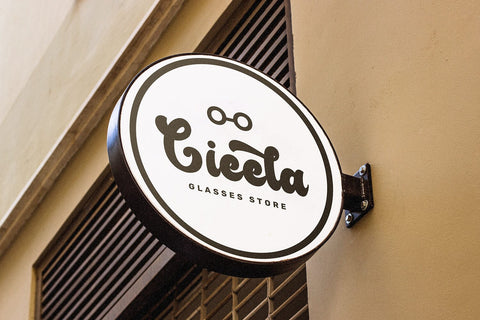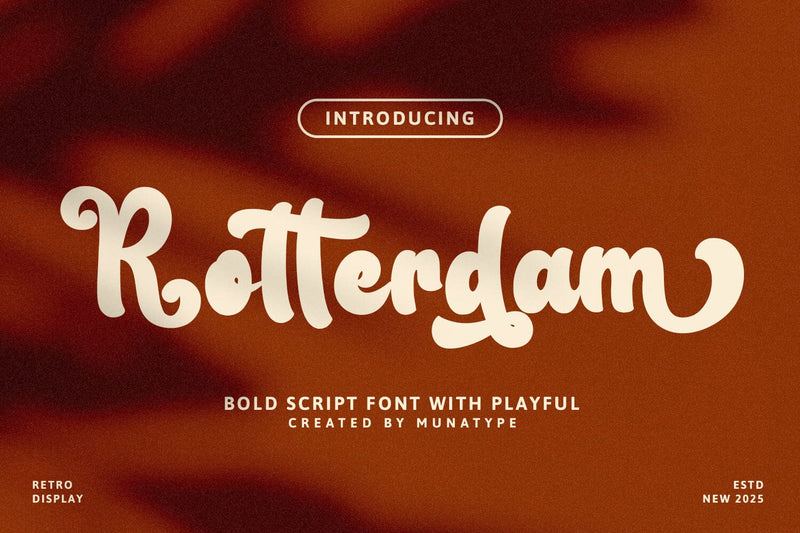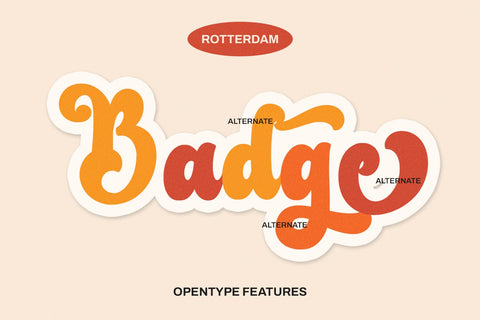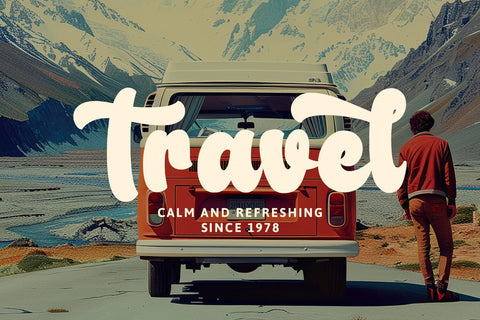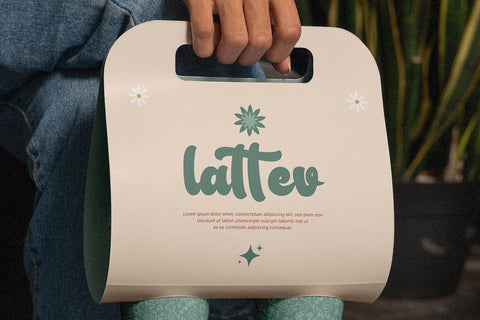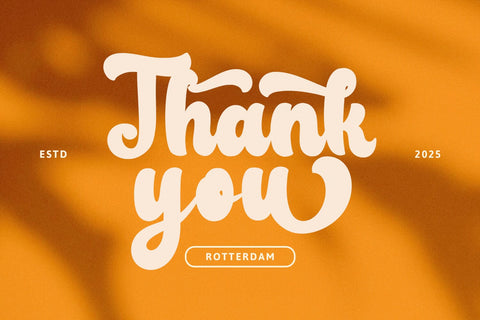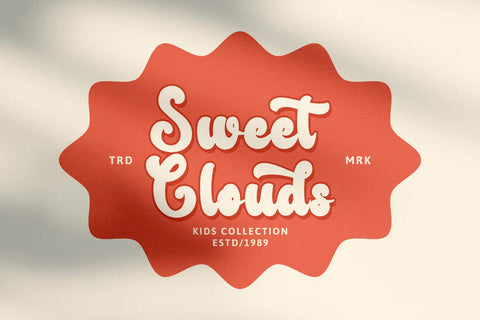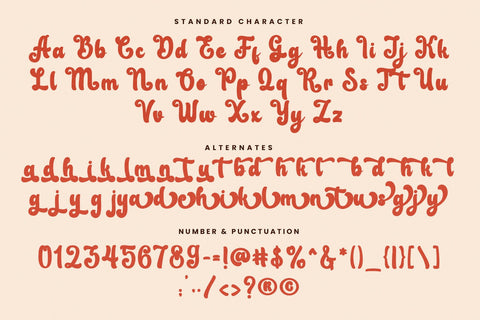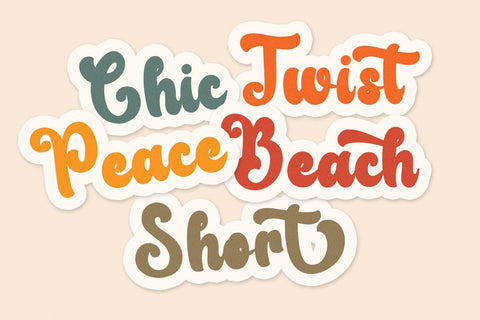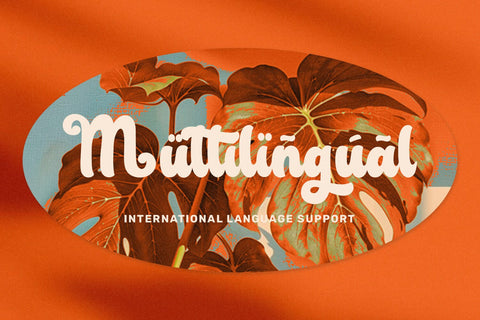
Rotterdam - Vintage Font
Rotterdam Font is a stylish script handwritten font that blends vintage charm with modern elegance. Inspired by classic penmanship, this font is perfect for a wide range of themes including retro designs, elegant invitations, personal signatures, and seasonal celebrations like Christmas, New Year, Easter, and Thanksgiving. With its smooth flow and nostalgic character, Rotterdam brings a timeless touch to every design.
Every letter in Rotterdam Font is adorned with graceful beginning and ending swash tails, creating a beautiful rhythm and harmony throughout your text. Ideal for Cricut projects, embroidery, craft designs, and SVG lettering, this font is as versatile as it is eye-catching. Whether you're working on holiday cards, wedding invites, or vintage-themed decor, Rotterdam adds that handcrafted, heartfelt touch.
- Standard & Multilingual glyphs.
- Alternate glyphs & Unique Ligature.